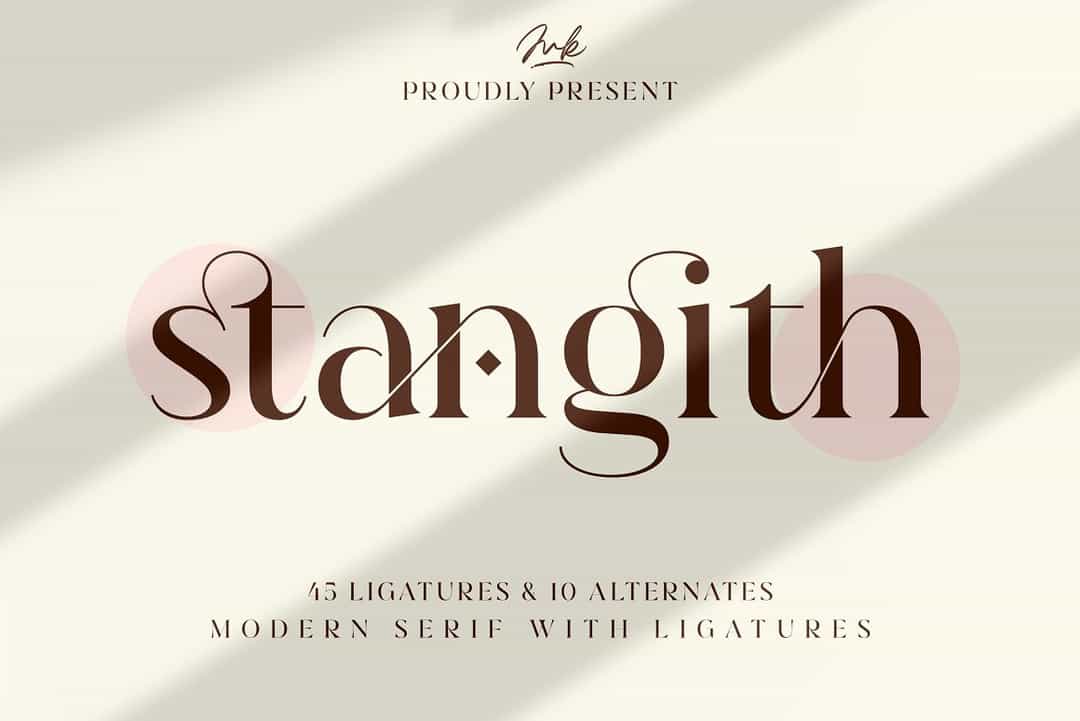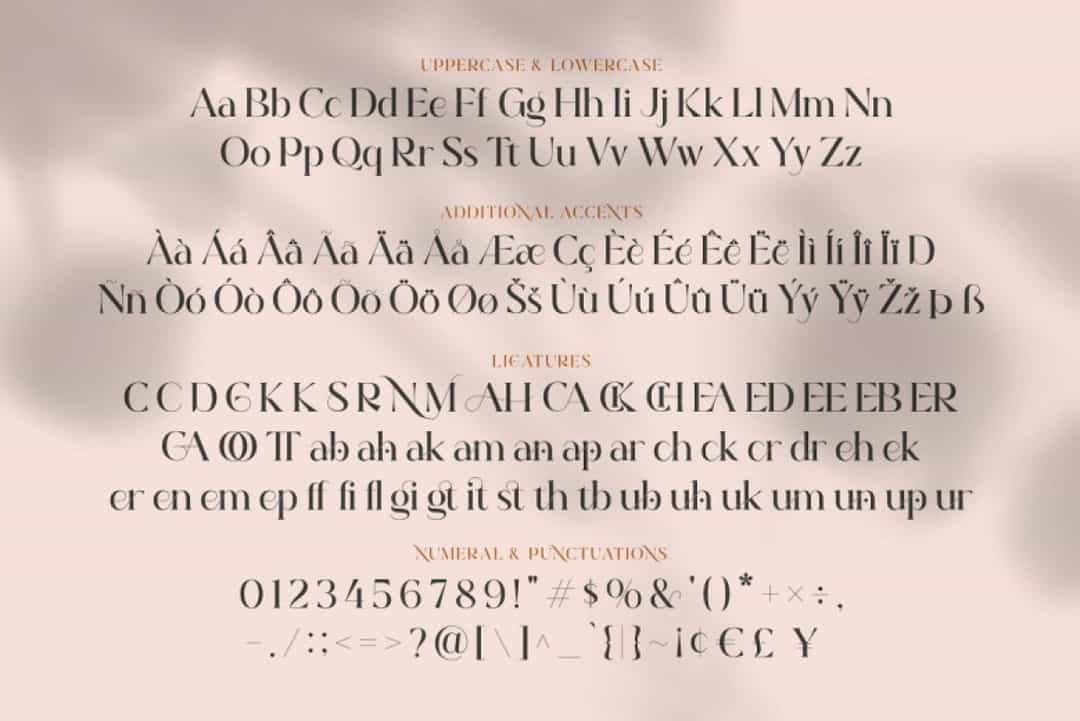
Stangith Font is an elegant typeface which employs Ligatures to seamlessly link letters. This font can add a distinctive variation to word-mark logos as well as monograms or pull quotes; with 45 Lightures and 10 Alternates available as well as punctuation and numbers included it is the ideal solution.